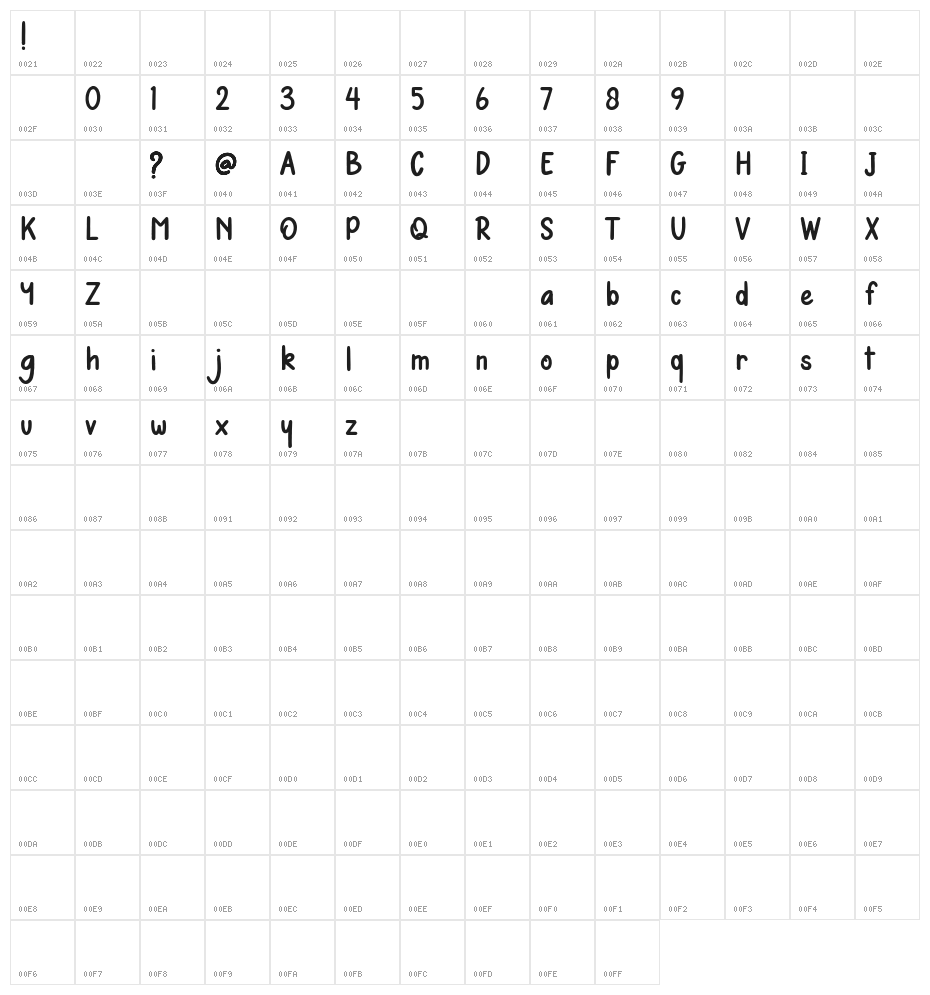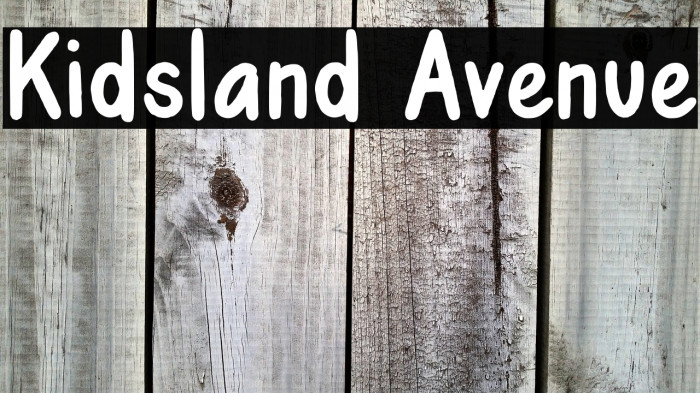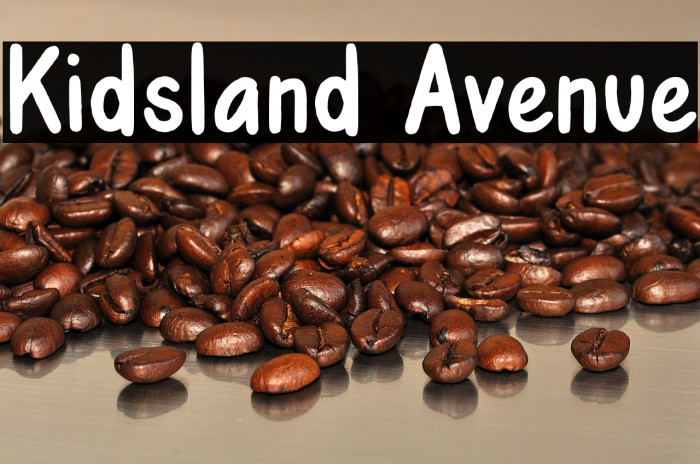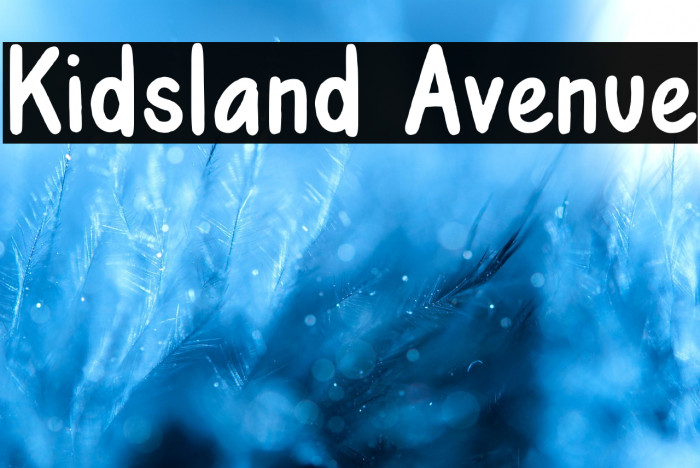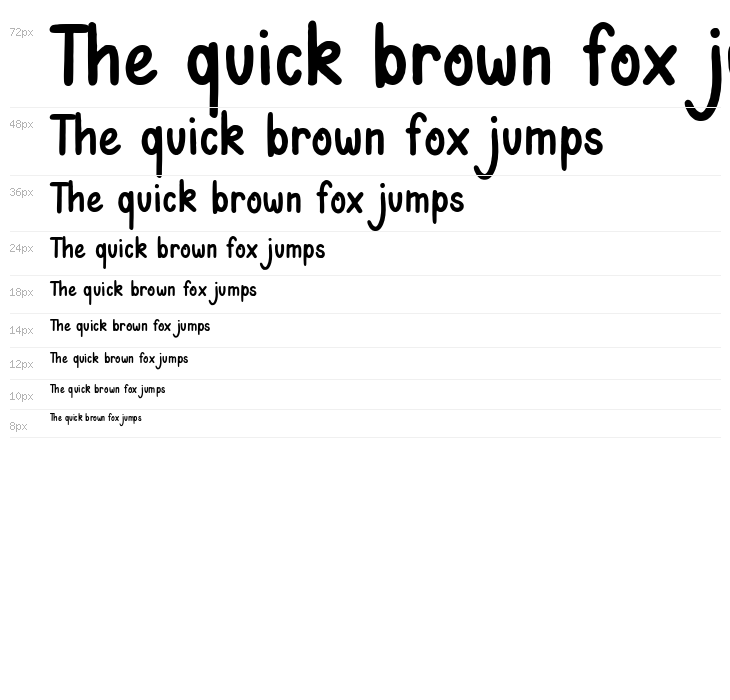
Kidsland Avenue Font
Kidsland Avenue Description
This playful and whimsical font features a handwritten style that exudes a sense of fun and creativity. The characters are rounded and slightly irregular, giving them a friendly and approachable appearance. The uppercase letters are bold and prominent, while the lowercase letters maintain a consistent flow with a slightly smaller size. The numbers are clear and easy to read, matching the playful style of the alphabet. The special characters are designed with the same playful touch, making them suitable for a variety of creative projects. This font is perfect for children's materials, playful branding, or any project that requires a touch of whimsy.
| Proposed Projects | Ideal for children's books, playful branding, educational materials, and creative posters. |